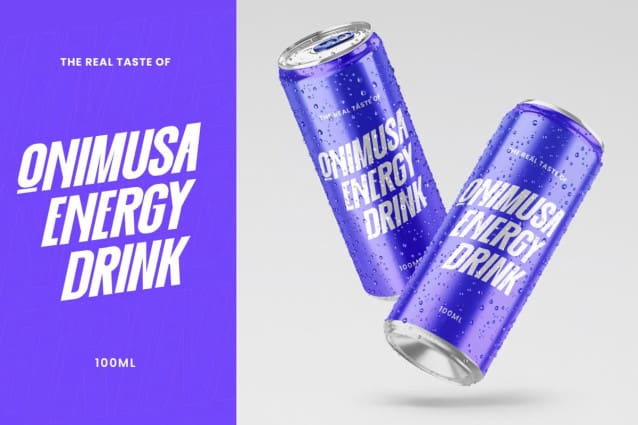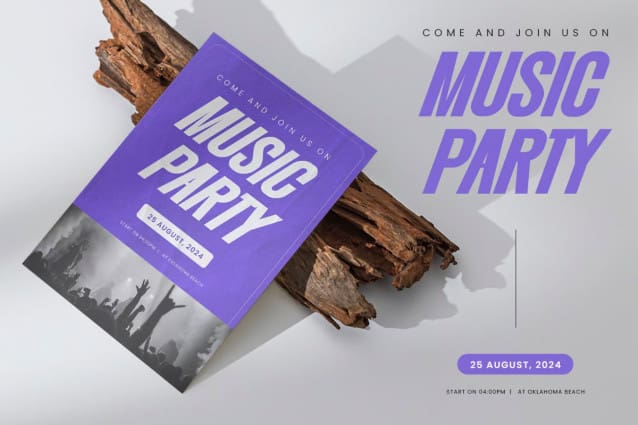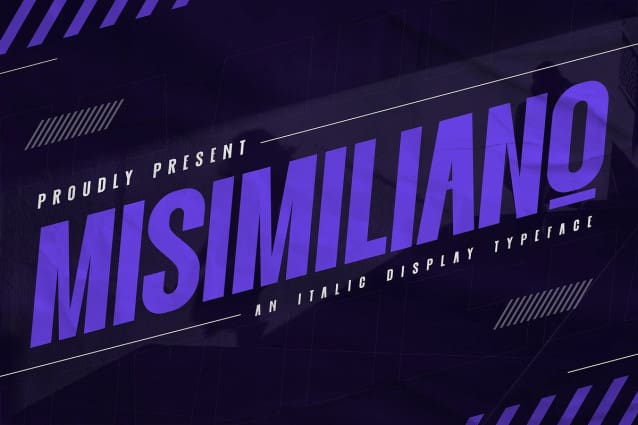
Misimiliano Font
Misimiliano Font is a bold and dynamic italic display typeface that brings energy and elegance to your designs. With its sharp angles and flowing letterforms, Misimiliano Font is perfect for fashion editorials, luxury branding, posters, and product packaging that require a touch of sophistication with a modern twist. Its slanted, italicized style gives it a sense of movement and fluidity, making your projects stand out with a sleek, refined edge. Whether used in digital or print, Misimiliano adds a stylish, contemporary flair to any design.